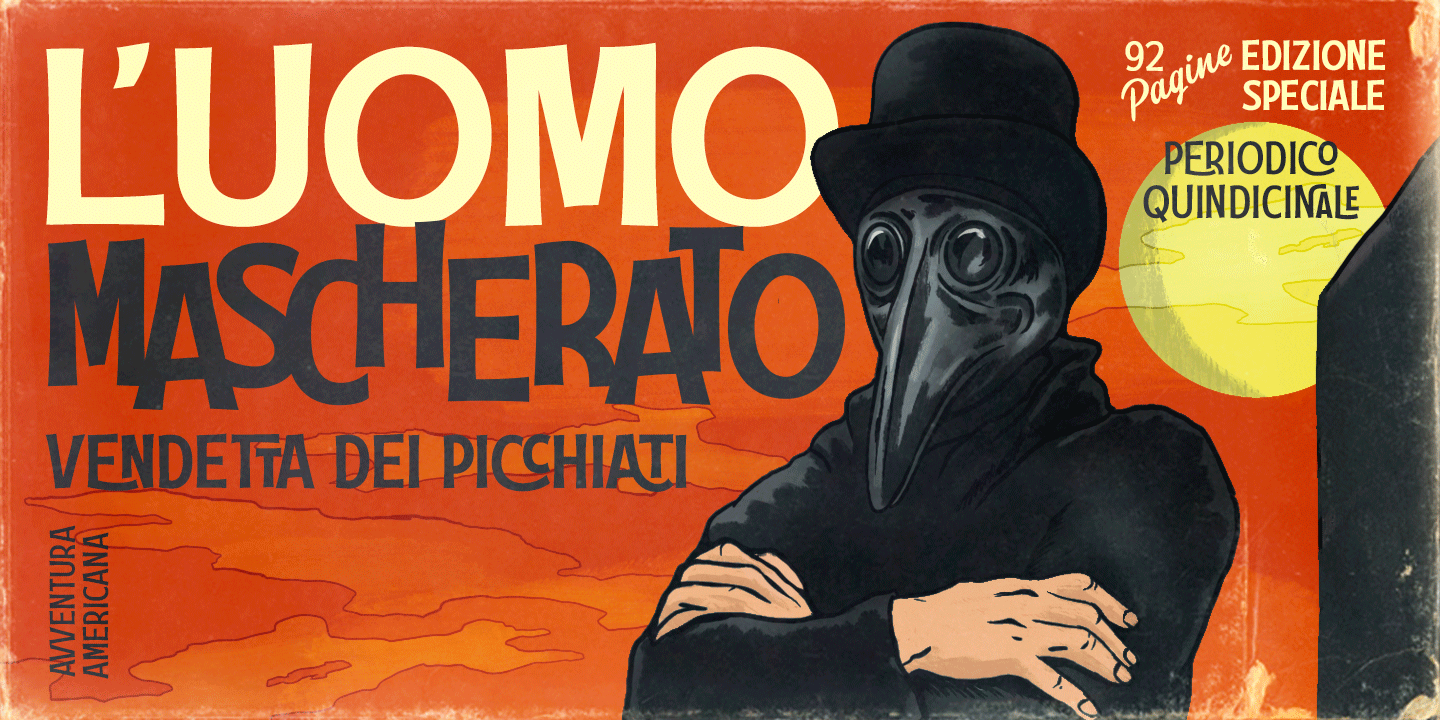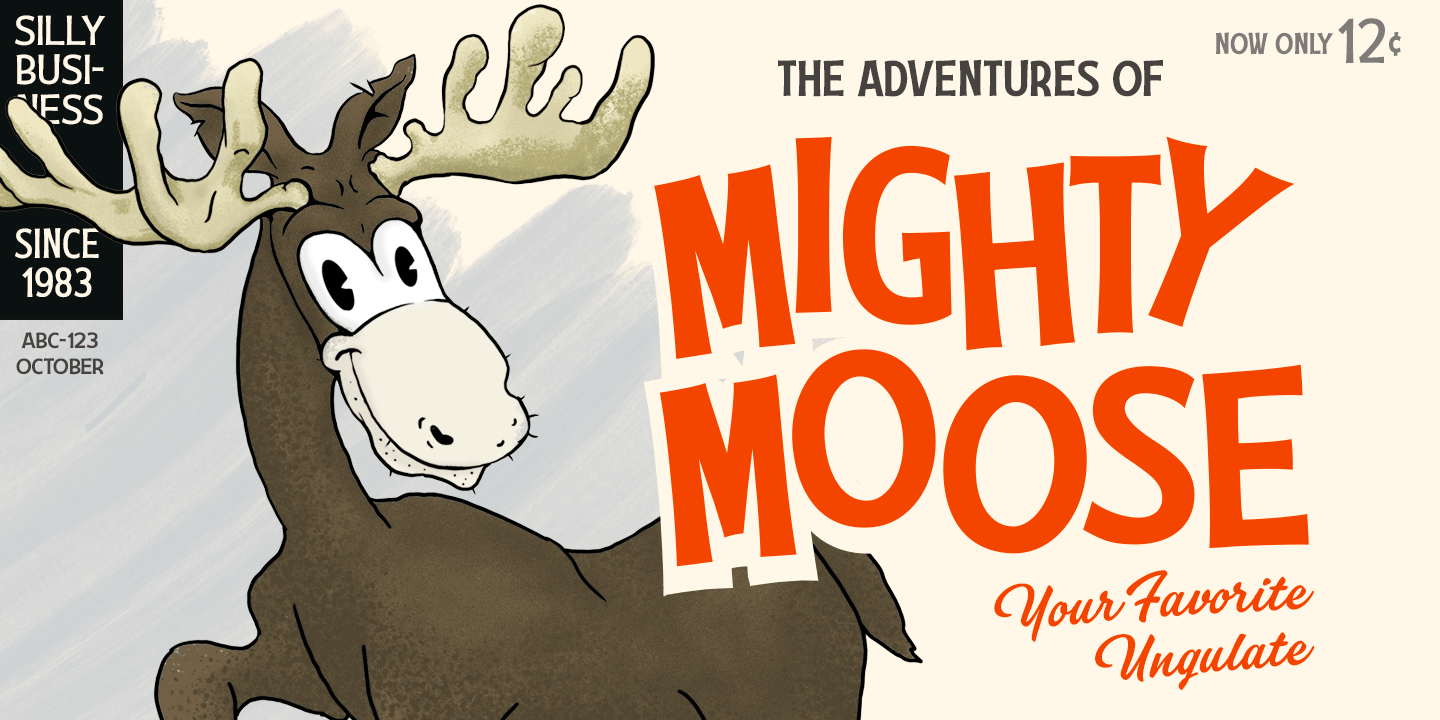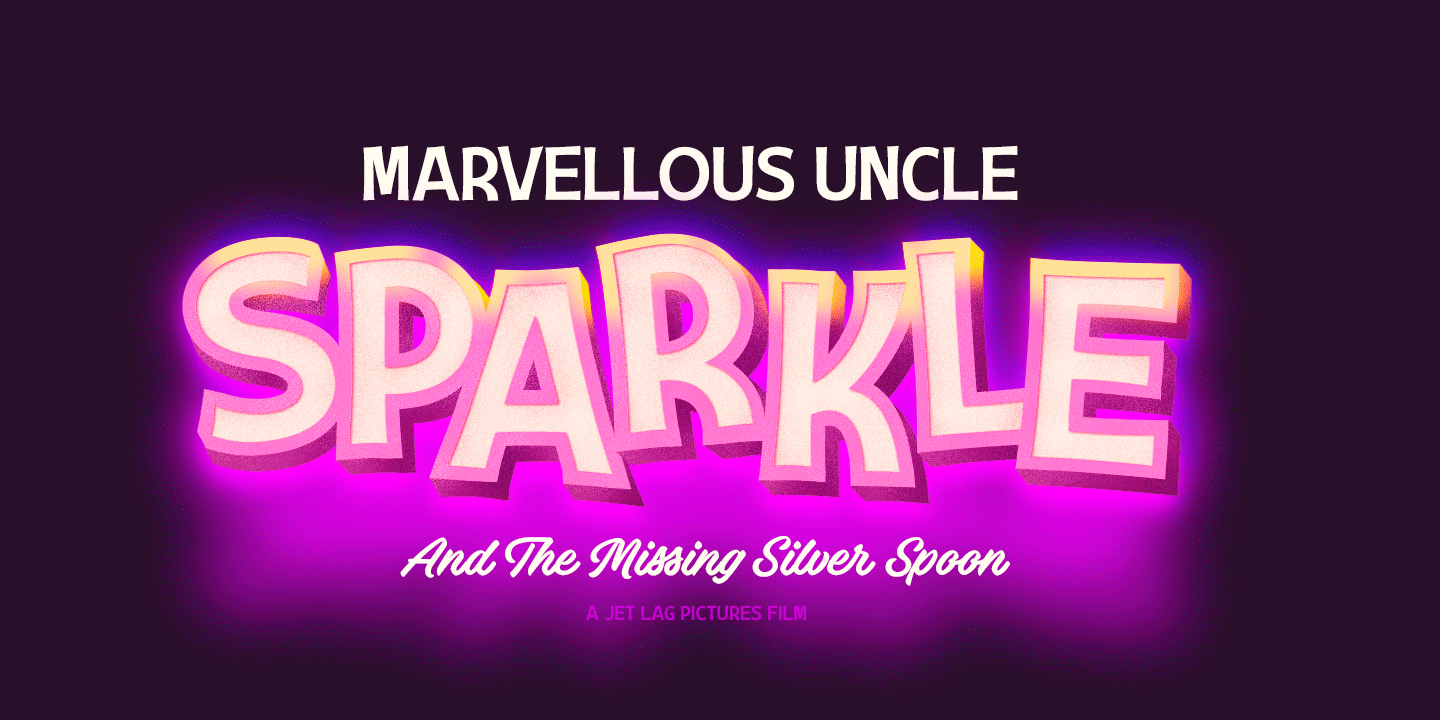
About Dirty Sundae
Dirty Sundae is a casual hand drawn typeface with interlocking ligatures. Dirty Sundae comes in four styles: Regular and Condensed plus Regular and Bold version of them both. Dirty Sundae suits great into a film title, as a logotype for a cartoon or…